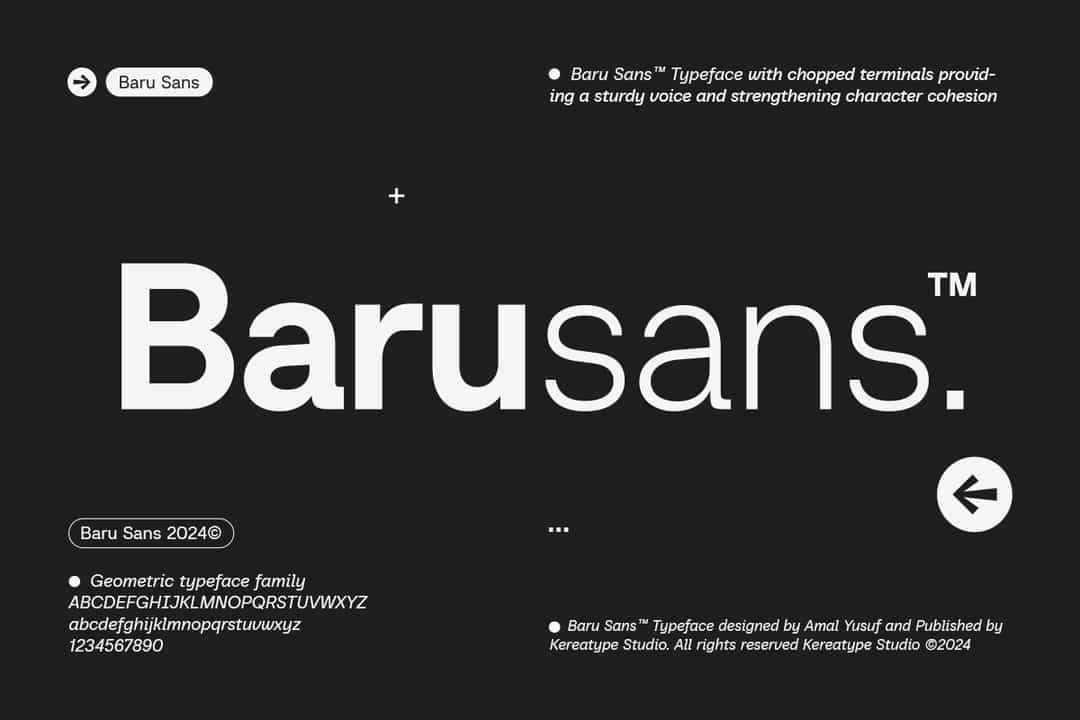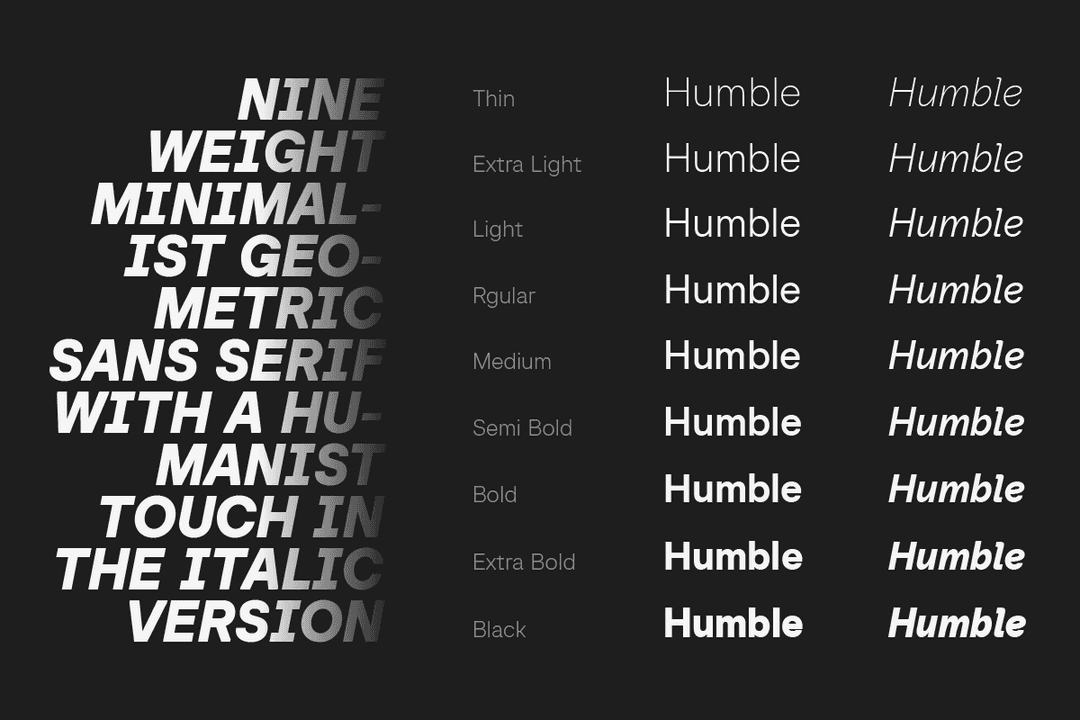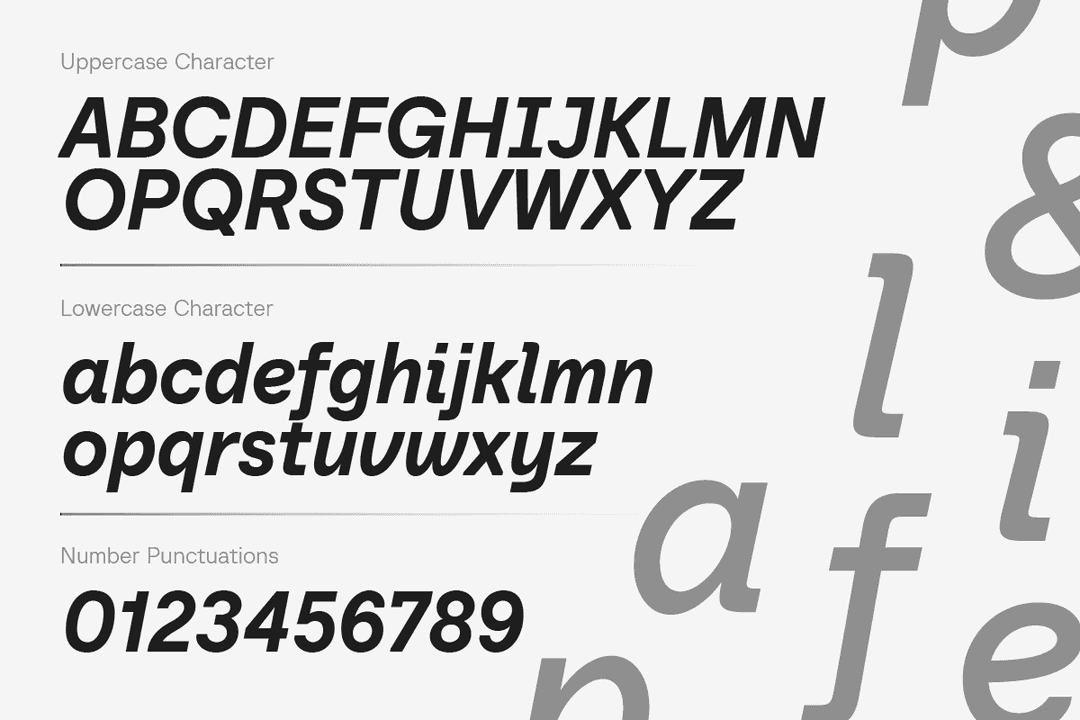
Baru Sans, a geometric font family, strikes an ideal balance between precision and aesthetic design. Featuring a distinctive 90o stroke to emphasize terminals, its italic version captures humanist handwriting with ease.